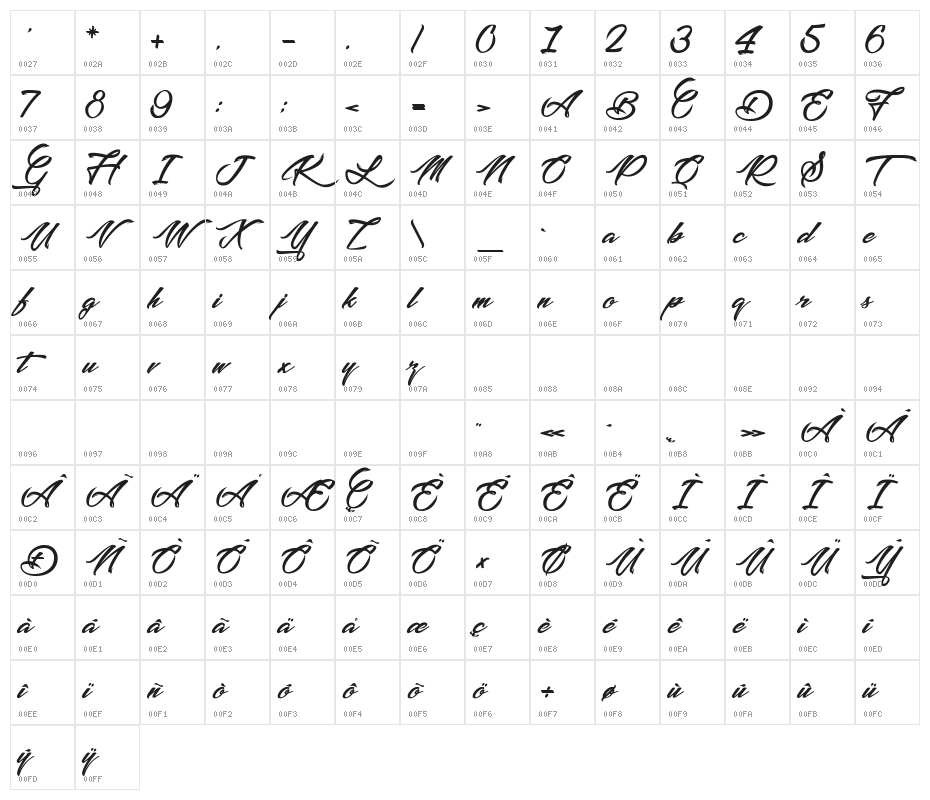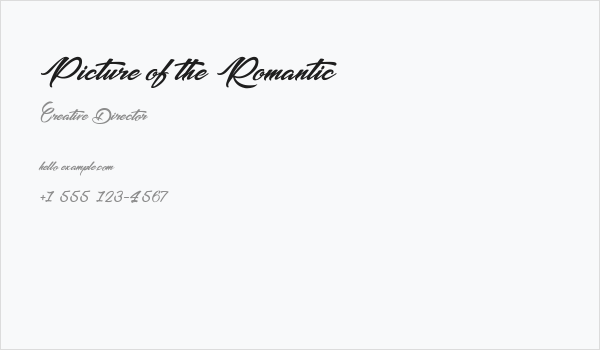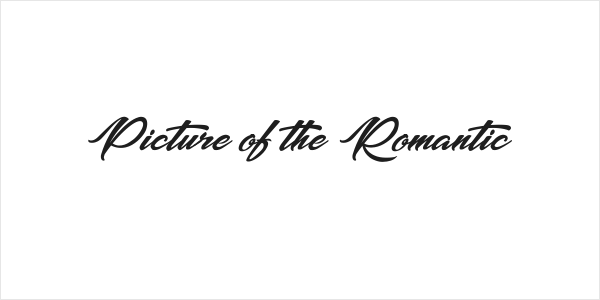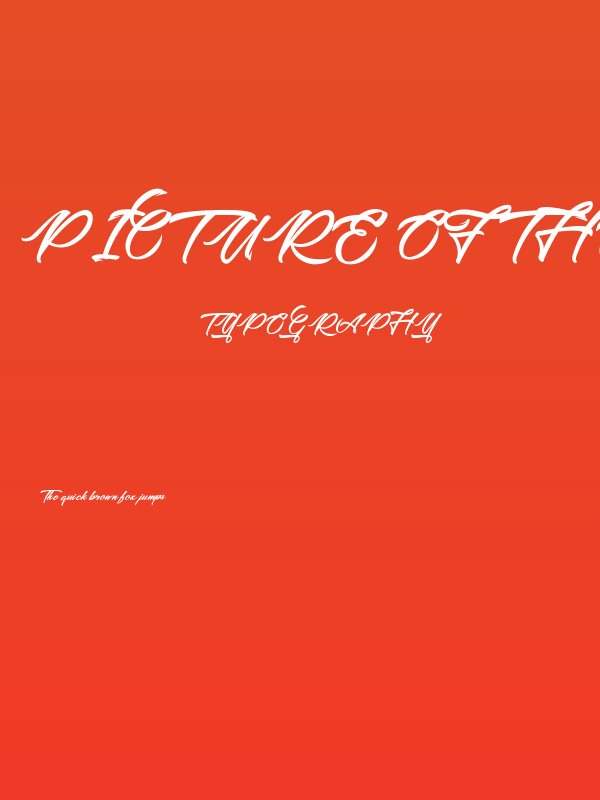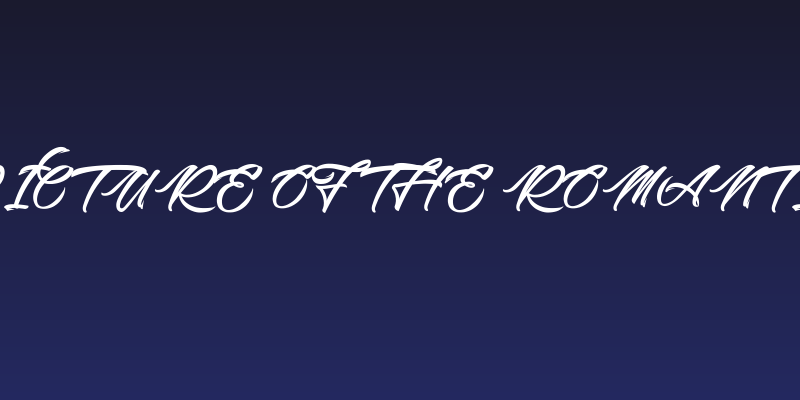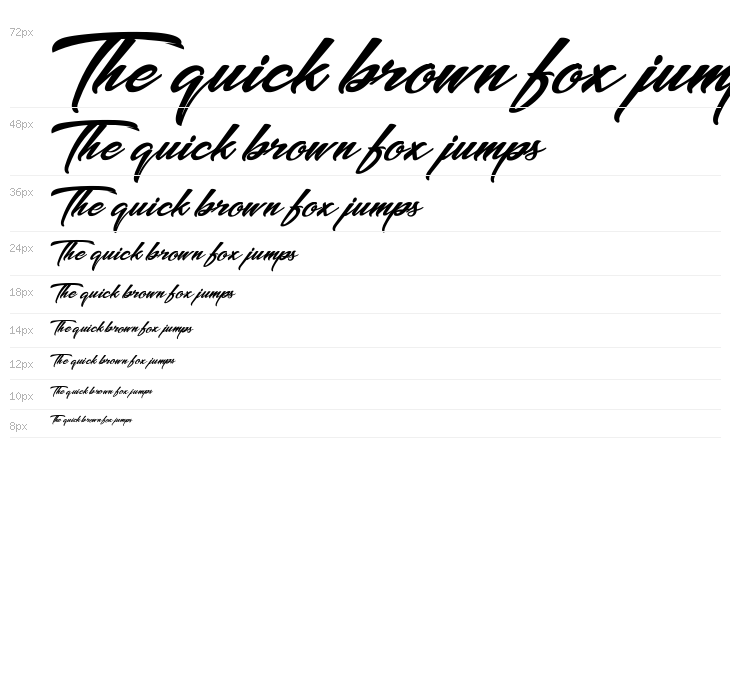
Picture of the Romantic Font
Picture of the Romantic Description
This font exudes a romantic and elegant flair, characterized by its flowing, cursive style. The letters are interconnected, creating a seamless and fluid appearance that mimics traditional calligraphy. The uppercase letters are ornate, with elaborate swashes and loops, while the lowercase letters maintain a consistent, graceful flow. The numerals are equally stylized, maintaining the cursive theme with elegant curves. Special characters are designed to match the overall aesthetic, adding to the font's cohesive look. This font is perfect for projects that require a touch of sophistication and elegance.
| Overall Style | Romantic |
| Proposed Projects | Ideal for wedding invitations, romantic greeting cards, elegant branding, and decorative quotes. |